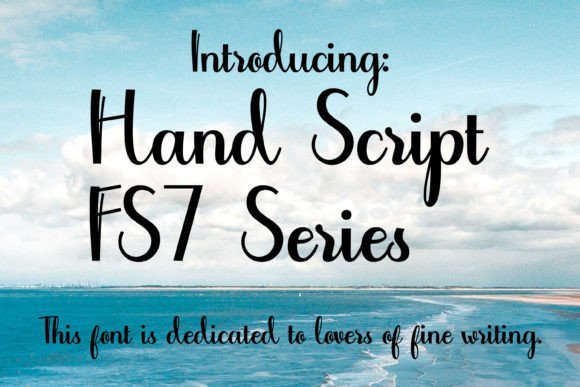
The Art of Handwritten Digital Text
Have you ever stared at a blank page, pen in hand, waiting for the perfect phrase to flow onto the paper? The struggle is real for many creatives, but what if you could harness the beauty of handwriting in a digital format? That’s exactly what the Hand Script – F7 Series Font offers – a family of fonts that mimic the organic feel of handwritten text, but with the precision and versatility of digital design.
Developed from upright handwriting samples, this font series boasts a unique blend of thickness and balanced strokes, resulting in a distinctive aesthetic that’s both elegant and approachable. Whether you’re a graphic designer, digital artist, or simply a creative enthusiast, the Hand Script – F7 Series Font is a valuable tool that can elevate your digital projects to new heights.
Hand Script – F7 Series Font Key Features
- Unique Characteristics: Handwritten, cursive, and script font with a personal touch, ideal for creative and artistic designs
Hand Script – F7 Series Font Review
Overall, I think the Hand Script – F7 Series Font is a great choice for those looking for a elegant, handwritten font. ✨ The font’s high level of customization allows you to tweak the style to fit your specific needs, from the weight to the slant.
The font’s script-like appearance makes it perfect for creative projects, such as invitations, posters, or even branding materials. ✨ The F7 Series Font is also highly legible, even at small font sizes, which is a major plus.
- High level of customization
- Elegant, handwritten appearance
- Perfect for creative projects
- Highly legible
- May not be suitable for body text due to its script-like appearance
- Can be overwhelming if used in large quantities
- Not as versatile as some other fonts
Overall, I would give the Hand Script – F7 Series Font 4 out of 5 stars. While it has its limitations, its unique appearance and high level of customization make it a great choice for the right project. With a little creativity, this font can really shine.
Use the Hand Script – F7 Series Font for creative and artistic projects, such as:
2. Birthday cards and party invitations.
3. Social media graphics and advertisements.
Alternatives to Hand Script – F7 Series Font
Pacifico is a beautiful, elegant script font that is perfect for creating a sophisticated and luxurious feel in your designs. It features a flowing, cursive style with a touch of classic charm.
Comparison: Pacifico is more elegant and sophisticated than Hand Script – F7 Series Font, making it ideal for high-end branding, invitations, and luxury products.
Great Vibes is a modern, elegant script font that is perfect for creating a fun and lively feel in your designs. It features a flowing, cursive style with a touch of playfulness.
Comparison: Great Vibes is more playful and fun than Hand Script – F7 Series Font, making it ideal for creative projects, youth branding, and entertainment products.
Carolyna Pro is a beautiful, elegant script font that is perfect for creating a luxurious and sophisticated feel in your designs. It features a flowing, cursive style with a touch of classic charm.